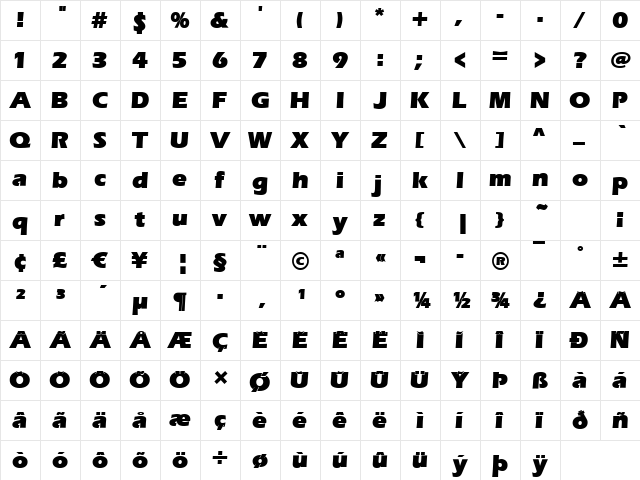
Ennis-Poster-Ultra Regular
Design Context for Ennis-Poster-Ultra Typeface
Ennis-Poster-Ultra takes a measured approach to typography — its balanced proportions and neutral character make it a reliable workhorse for both digital and print work.